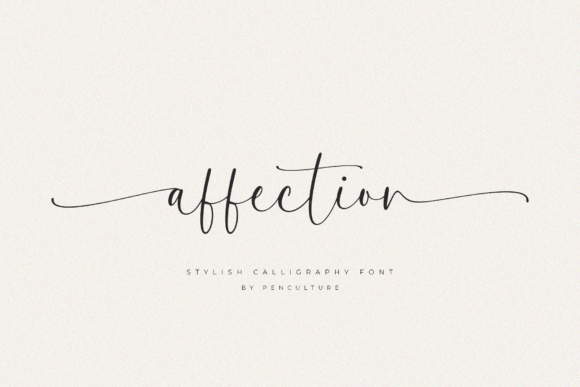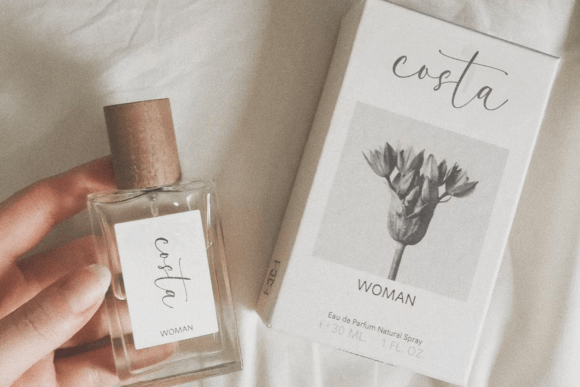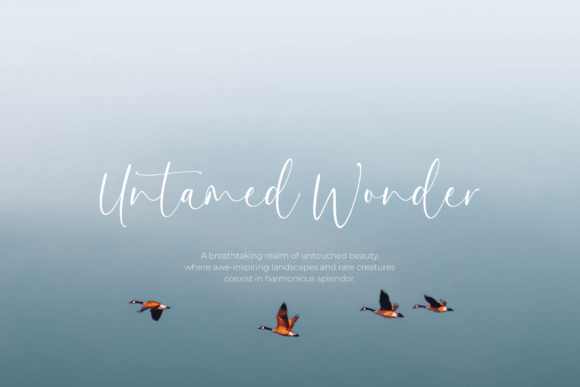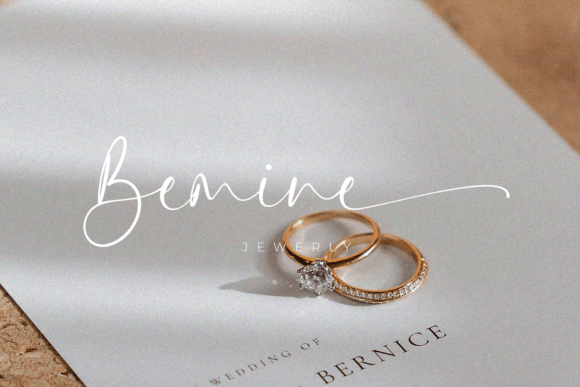
Affection Font: Elegant Calligraphy for Wedding & Branding Design
About the Affection Font
Experience the unique personality of Affection Font, a font designed for impact. Affection is a charmish and stylish calligraphy font that come with its effortless swashes and simple yet captivating letterforms. Affection exudes a laid-back charm that effortlessly draws attention. This font perfect for wedding invitation, branding, cards, social media and many more.
Affection’s effortless charm makes it ideal for headlines, short text blocks on invitations or branding materials, and social media graphics. Its stylish calligraphy works beautifully for projects requiring a touch of elegance and personality, such as wedding stationery or product packaging for lifestyle brands. However, its swashes and decorative nature make it less suitable for body text or UI elements where readability is paramount. Avoid using it for long paragraphs or applications demanding high legibility.
Pairing Affection with a clean sans-serif like Montserrat or Lato provides a strong contrast and enhances readability when used together. For a more luxurious feel, consider pairing it with a classic serif font such as Garamond or Playfair Display. A simple geometric sans-serif could also create a modern yet balanced feel.
Affection projects a friendly, elegant, and slightly playful personality. It’s best suited for brands and projects aiming for a sophisticated yet approachable aesthetic, suggesting warmth and approachability without sacrificing style.
Affection Font Usage Examples
Affection Font Example